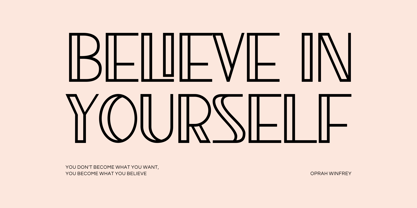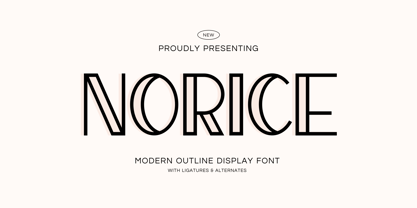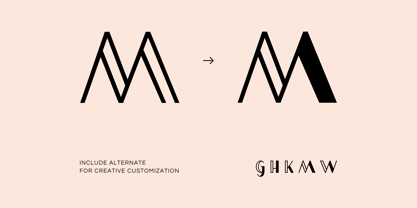
Norice
by Imoodev
The Norice Font Family was designed by Aulia Savira Putri and published by Imoodev. Norice contains 1 styles.
Norice is a modern outline display typeface that combines refined linear elements with a vintage Art Deco appeal. It’s an outline display font, so each letterform is hollow at the center but still bold in its structure.
Equipped with ligatures and additional glyphs, Norice offers flexibility for sophisticated branding, headline, logotype, printed quotes, wedding invitations, cards, letterheads, magazines, books, and editorial. Its minimalist structure imbues a sense of contemporary polish, making it equally suited for modern design projects and those seeking a touch of timeless glamour.
Features:
• Uppercase and Lowercase
• Punctuation, Alternates and, Ligatures
• Number and Symbol
• Multilingual Support
• Opentype Features
Designers: Aulia Savira Putri
Publisher: Imoodev
Foundry: Imoodev
Design Owner: Imoodev